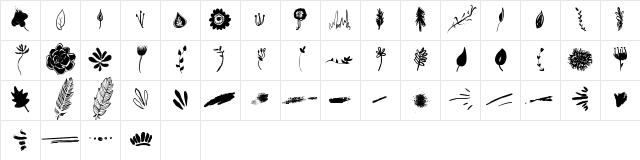
Complete Dashing Florals Regular glyph index. Displaying only characters natively supported by Dashing Florals Regular font.
Dashing Florals is a composed and adaptable typeface that performs quietly and consistently across a wide range of design contexts.